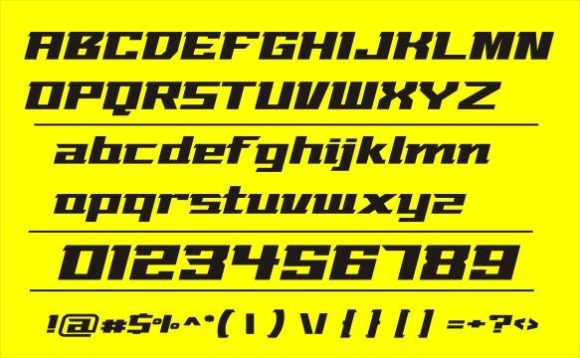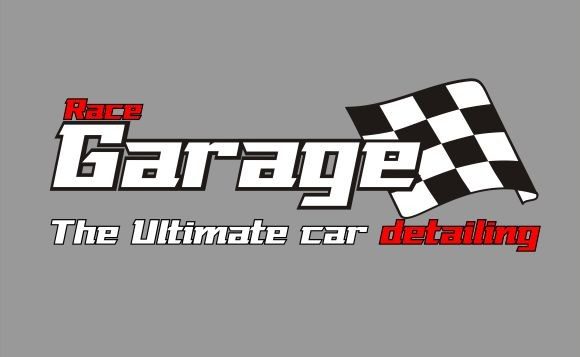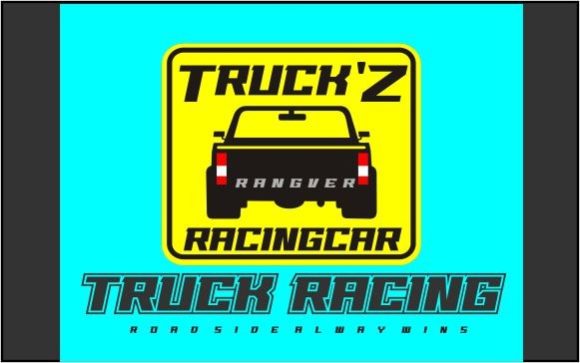
Introduction to Rangver Font
Have you ever stared at a blank canvas, waiting for inspiration to strike? For designers, those moments of creative limbo can be the most frustrating – but also the most rewarding. It’s in these moments that the perfect font can make all the difference. Enter the Rangver Font, a modern and techno-looking display font that’s sure to elevate any creative project.
Whether you’re designing a logo for a high-speed sports brand or creating a poster for a racing event, the Rangver Font is the perfect design resource. Its sleek lines and futuristic feel make it a high-quality addition to any project, and its transparent background allows for seamless integration with even the most complex designs.
Key Features of Rangver Font
- The Rangver Font is a high-quality design resource, perfect for creative projects that require a unique and eye-catching font.
- It offers a transparent background, allowing for seamless integration with various design elements and backgrounds.
- Rangver Font features a modern and elegant design, suitable for a variety of applications, including logos, branding, and packaging.
- Its unique characteristics, such as the subtle texture and creative flair, make it an excellent choice for designers looking to add a personal touch to their projects.
Honest Review: Rangver Font
As a designer, I’m always on the lookout for unique and high-quality design resources to elevate my creative projects. Recently, I had the chance to try out the Rangver Font, and I must say, it’s a gem.
What doesn’t work well: ⚠️ While the Rangver Font is a great choice for many projects, it may not be the best fit for more complex or busy designs. The simple typography can sometimes get lost in cluttered backgrounds, so it’s essential to use it thoughtfully and pair it with the right visual elements.
Overall, I’m thoroughly impressed with the Rangver Font. Its high-quality design, free download, and versatility make it a must-have for any designer. Whether you’re working on a simple brochure or a complex website, this font is sure to add a touch of sophistication and elegance to your creative project.
- Perfect for simple and modern designs
- May not be suitable for complex or busy designs
Use the Rangver Font in combination with a transparent background to create a unique and eye-catching design. Experiment with different font sizes and styles to add depth and interest to your designs. The Rangver Font is perfect for creative projects, from logos and branding to brochures and marketing materials.